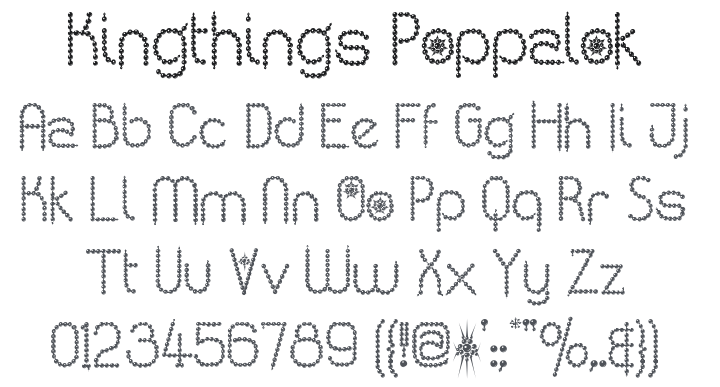
Kingthings Poppalok Font
About Kingthings Poppalok
This is based on Kingthings Whizzbang - it is actually Anthea's fault - if you want someone to blame, (and it never hurts), she said, when I showed her whizzbang, -Oh yes, reminds me of those beads you used to get, years ago- Poppalok beads, I played with them for hours when I was a child - Mum had them in all colours, and some very strange combinations when I had finished!